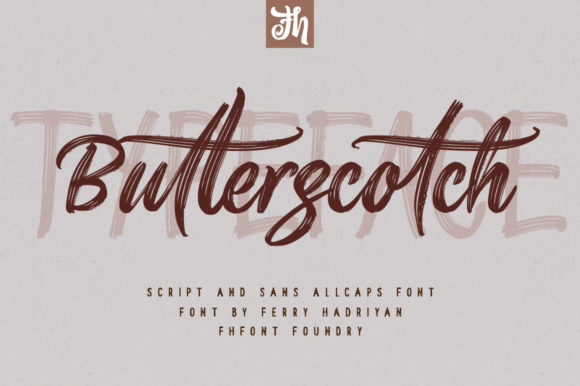
The Sweet Spot: Discovering the Charm of Butterscotch Font
I’ll never forget the time I was working on a branding project for a cozy little bakery. My client wanted a font that would evoke feelings of warmth and comfort, but I was struggling to find the perfect fit. That’s when I stumbled upon Butterscotch, a friendly and casual handwritten script font that instantly transported me to a world of sweet treats and welcoming vibes. In this article, I’ll share my experience with Butterscotch, its unique features, and how to make the most of it in your designs.
An Honest Review: The Good and the Quirky
What I Love About Butterscotch ✨
- ✅ Its warm and inviting personality makes it perfect for branding, packaging, and social media graphics.
- ✅ The font’s casual, handwritten feel adds a touch of whimsy and playfulness to any design.
- ✅ Butterscotch comes with a range of OpenType features, including stylistic alternates and glyphs, which offer plenty of creative possibilities.
- ⚠️ Butterscotch may not be the best fit for very formal or corporate designs, as its friendly nature might come across as too casual.
- ⚠️ Some of the font’s swashes and flourishes might not work well at smaller font sizes, so be mindful of that when scaling down.
A Practical Guide: Using Butterscotch in Your Designs
The Story Behind Butterscotch: A Designer’s Inspiration
Butterscotch was designed with the intention of creating a font that would evoke feelings of warmth and comfort. Its creator, a talented type designer, drew inspiration from classic handwritten scripts and infused them with a modern, playful twist. The result is a font that feels both nostalgic and fresh, perfect for designs that require a friendly, approachable touch.
Q: What makes Butterscotch a great choice for branding and packaging?
A: Butterscotch’s warm and inviting personality makes it perfect for branding and packaging designs that require a friendly, approachable touch.
Q: Can I use Butterscotch for body text or is it better suited for headlines?
A: While Butterscotch can be used for body text, it’s generally better suited for headlines and titles, where its unique personality can shine.